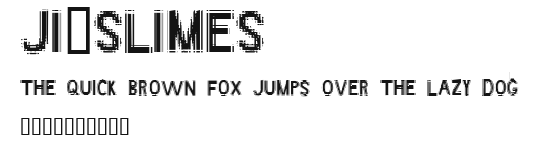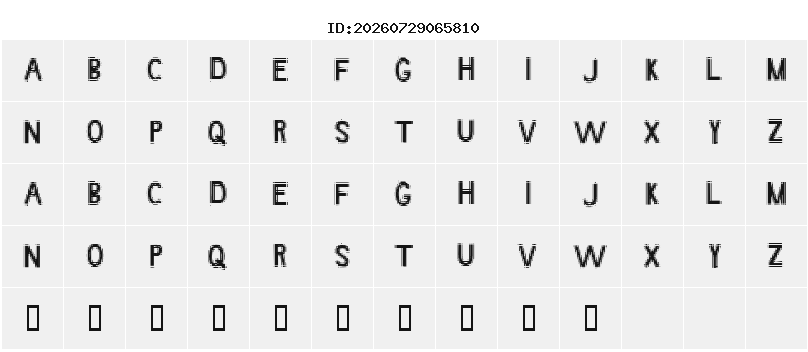
JI-Slimes Preview
• Font Name: JI-Slimes
• Full Font Name: JI-Slimes
• Designer: JupiterImages
About JI-Slimes.ttf
JI-Slimes.ttf is a modern, elegant sans-serif font designed for ultimate readability and visual harmony. Perfect for branding, headlines, web design, and print materials.